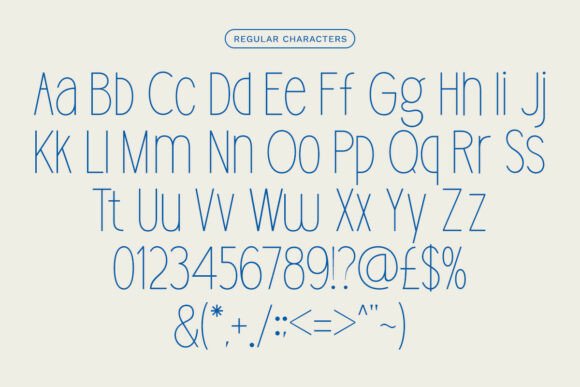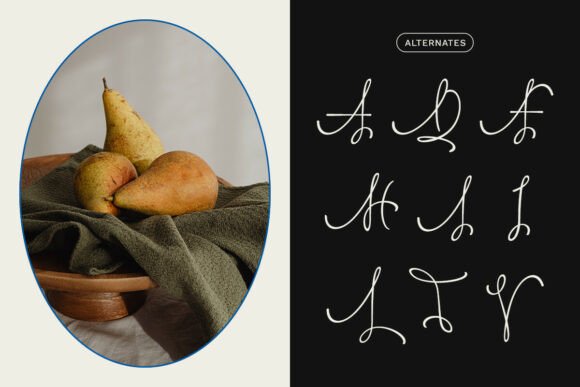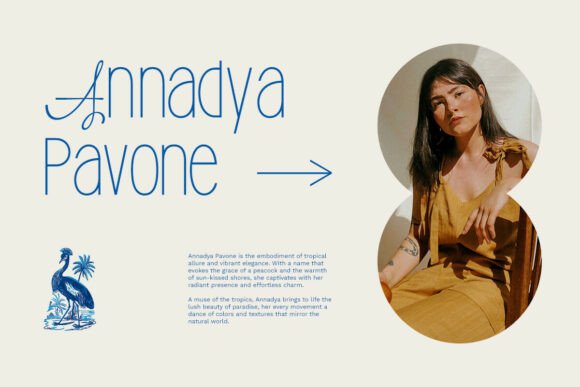
Introduction to Larasita Font
Larasita is an elegant artistic sans-serif font that blends modern simplicity with graceful, expressive curves.
Designed with clean strokes and refined proportions, this typeface delivers a sophisticated yet approachable visual character Its subtle artistic details add personality while maintaining clarity and balance, making it suitable for both display and refined branding applications.